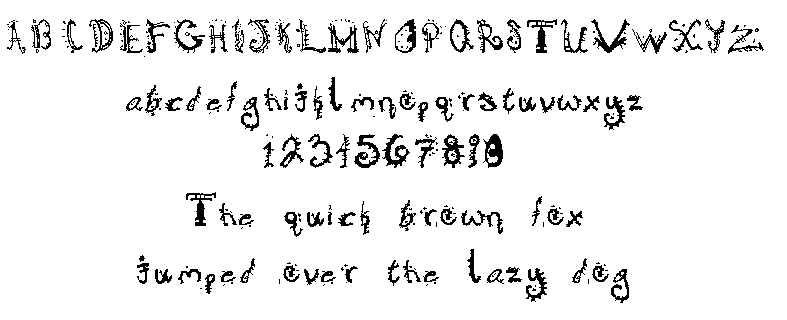
First Font
1K Viewscute and fun-- first font ever.... took me all day to do ( mainly b/c i had no idea on how to figure out fontlab studio @_@ ) o yeah, this font does not have punctuation markings. :;.,?//!@#$%^&*() all those... yeah.. it sucks, but hey...enjoy!